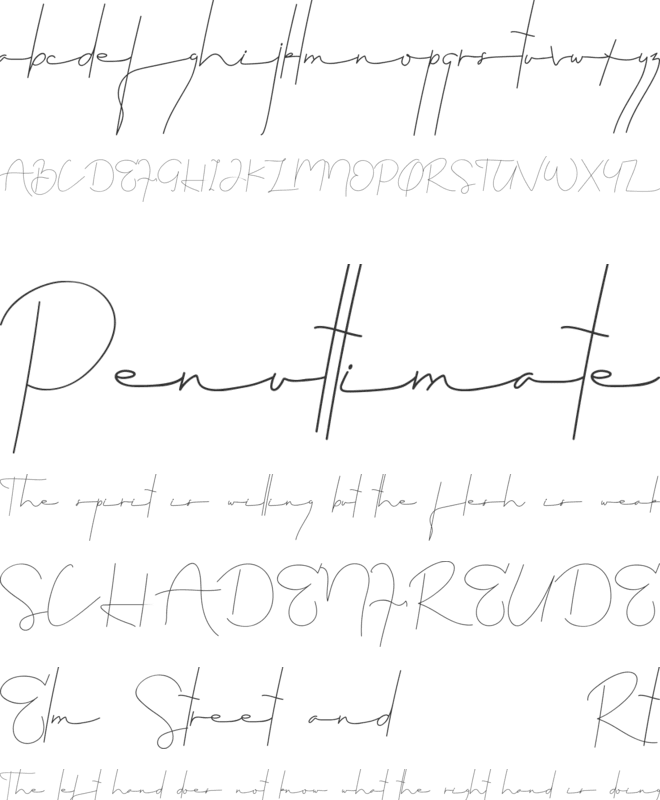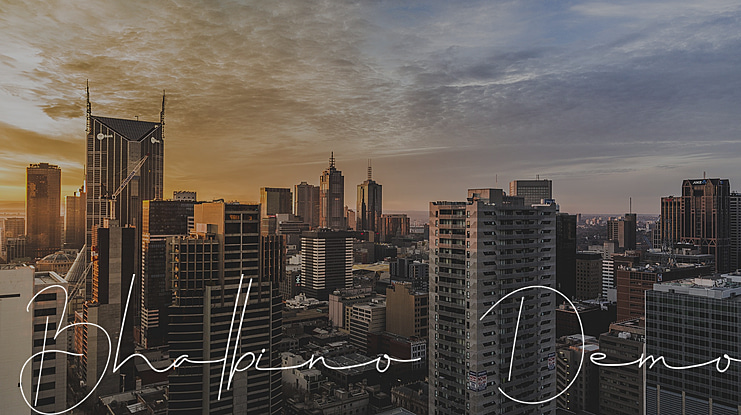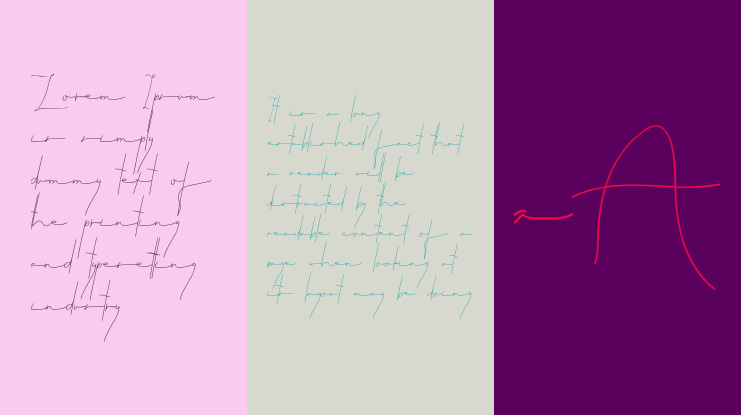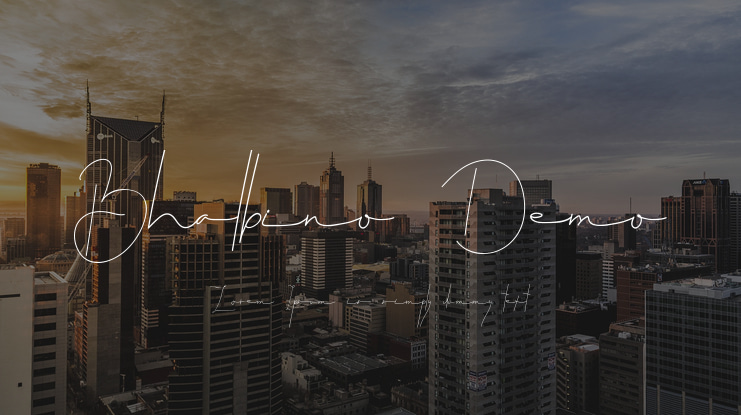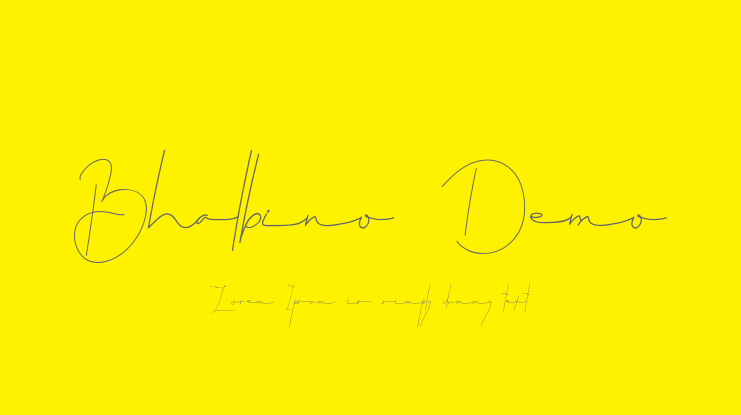
Edric Studio in 2020, Presenting to you : Bhalbino Signature Font
This is a script font with Handwriting Signature style. This typeface was handcrafted by two typeface artists : Saila and Suci. Made in Bandung and Garut – West Java, Indonesia.